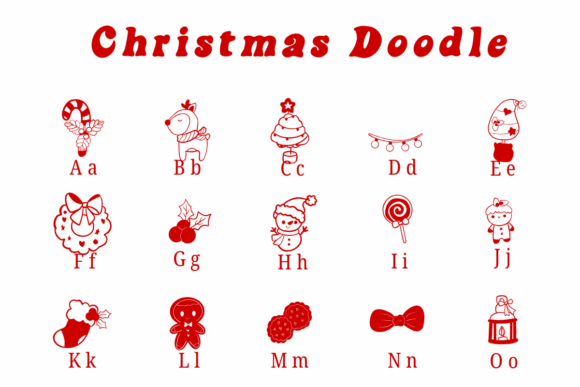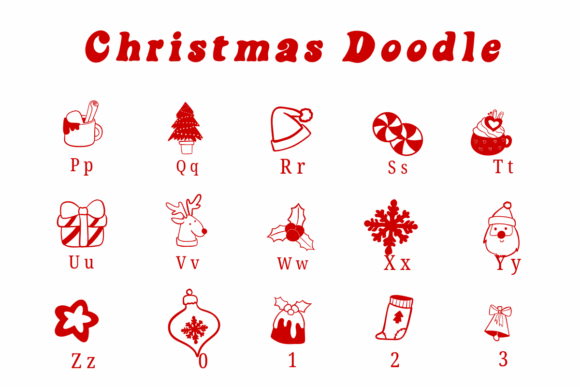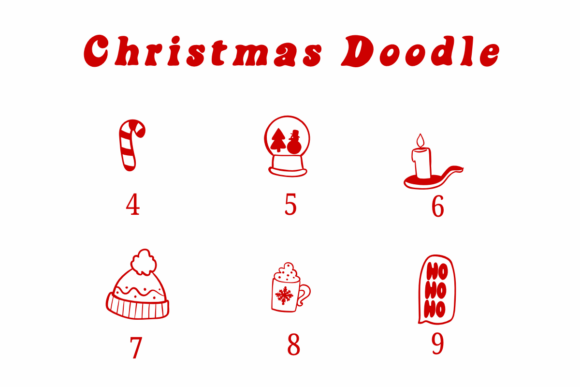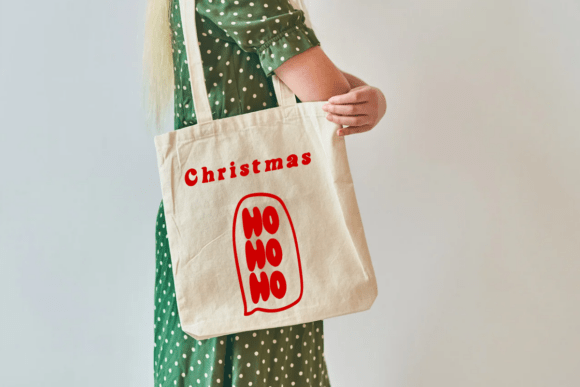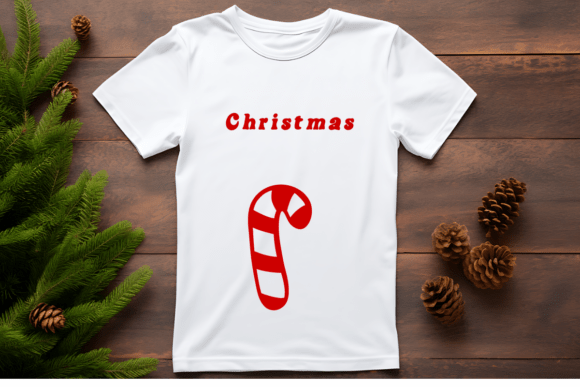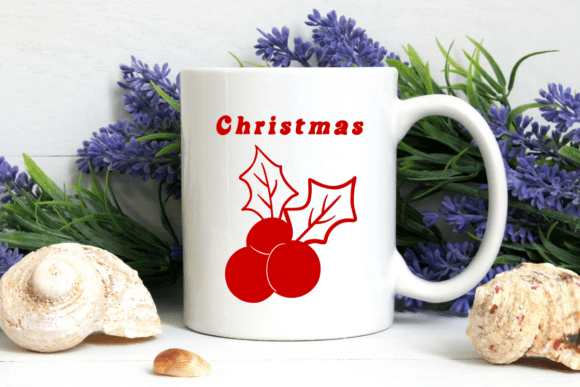
The Magic of Christmas Doodle Font: Bringing Holiday Cheer to Your Designs
It’s that time of the year again – the lights are twinkling, the fireplace is crackling, and the festive spirit is in the air. As a designer, there’s nothing quite like the thrill of brainstorming new ideas for holiday projects. Perhaps you’re crafting a festive holiday card or designing a seasonal gift tag. Whatever your creative endeavor, the right font can make all the difference.
That’s where Christmas Doodle Font comes in – a delightful dingbats font packed with charming hand-drawn holiday icons. From gingerbread cookies and candy canes to stockings, ornaments, and holly, this font is the perfect companion for bringing the joy of Christmas to life in every character. With its whimsical charm and playful feel, Christmas Doodle Font is an absolute must-have for designers looking to add a touch of festive magic to their projects.
- Unique Characteristics: The Christmas Doodle Font features a whimsical, hand-drawn design with intricate doodles and ornaments, adding a touch of festive charm to any design.
Designer Review: Christmas Doodle Font
Overall, I’m quite pleased with the Christmas Doodle Font. Here are some of the things that work well:
- ✨ The playful, whimsical feel is perfect for holiday-themed designs.
- ✨ The font is highly customizable, with a wide range of colors and styles to choose from.
- ✨ The doodle elements add a fun and creative touch to any design.
- ⚠️ The font may not be suitable for formal or professional designs, as it’s quite playful and informal.
- ⚠️ Some of the doodle elements can be a bit pixelated, which may be a concern for high-resolution designs.
Overall, I think the Christmas Doodle Font is a great choice for holiday-themed designs, especially for personal or social media projects. While it may have some limitations, it’s a fun and creative font that’s sure to add some personality to any design.
The Christmas Doodle Font is perfect for adding a festive touch to your designs. Some common use cases include:
- Creating holiday cards and invitations
- Designing festive social media graphics
- Adding a touch of whimsy to your blog posts and articles